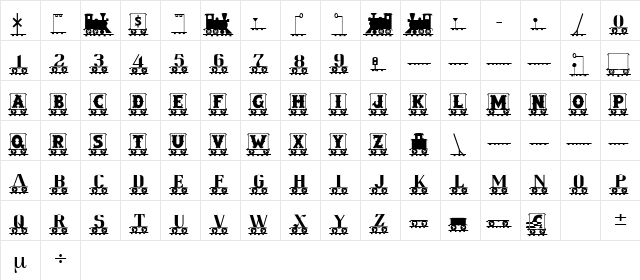
Railroad Regular
Design Context for Railroad Typeface
Railroad is a composed and adaptable typeface that performs quietly and consistently across a wide range of design contexts.